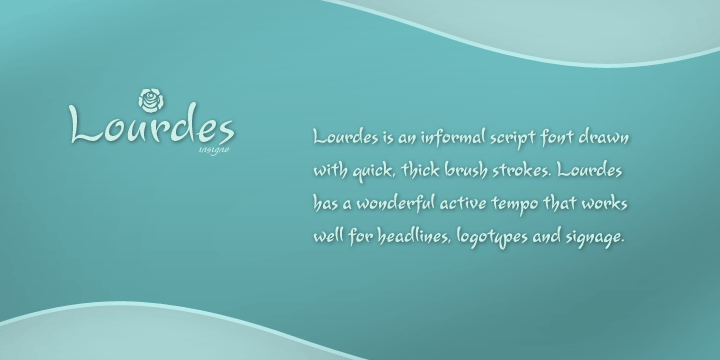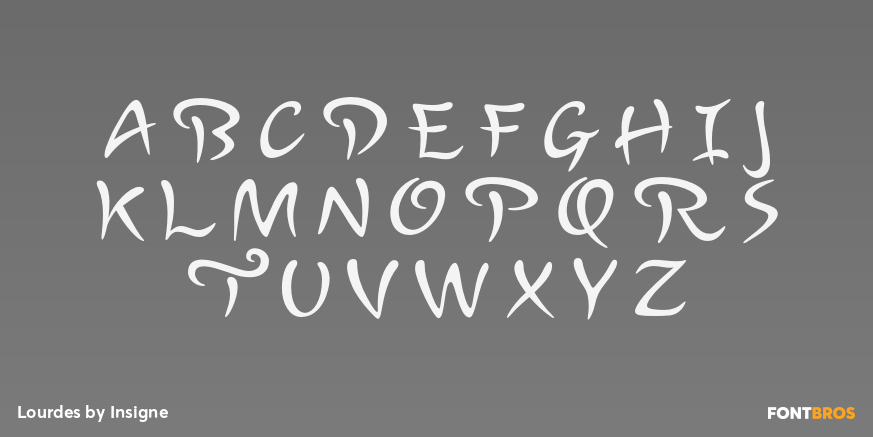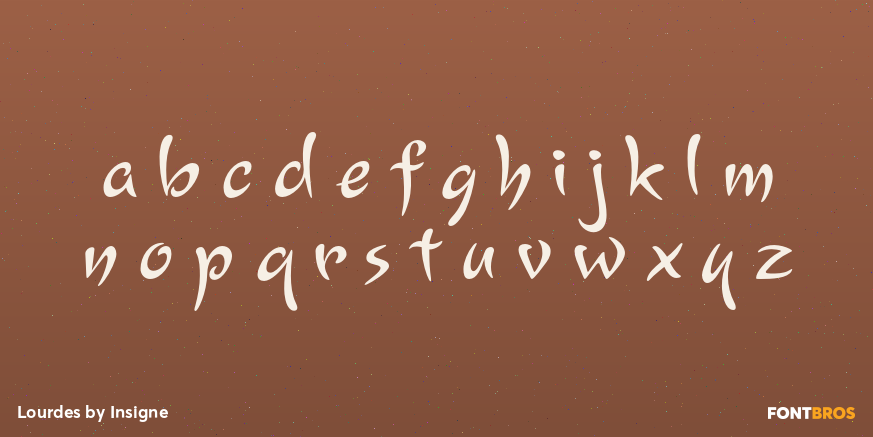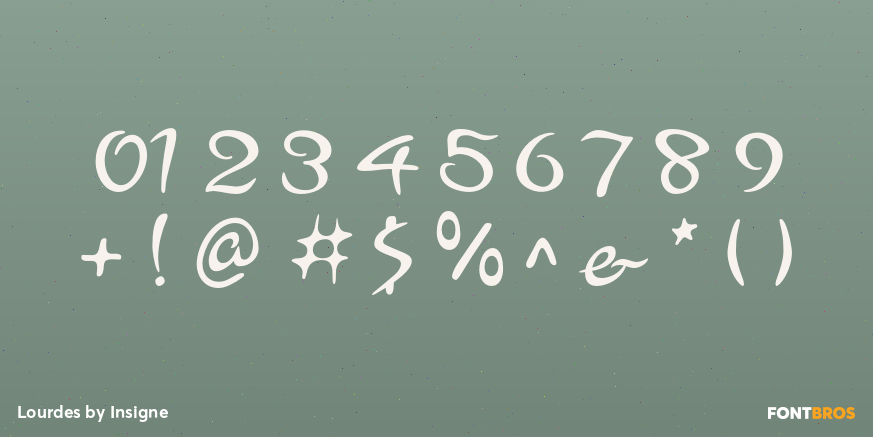
Lourdes
Font Family by Insigne
Buy NowLourdes is an informal script font drawn with quick, thick brush strokes. The script appears to be quickly dashed down, and the characters were carefully designed to create a subtle rhythm. The strokes are slightly muted to avoid an overly aggressive appearance.
Lourdes has a wonderful active tempo that works well for headlines, logotypes and signage.